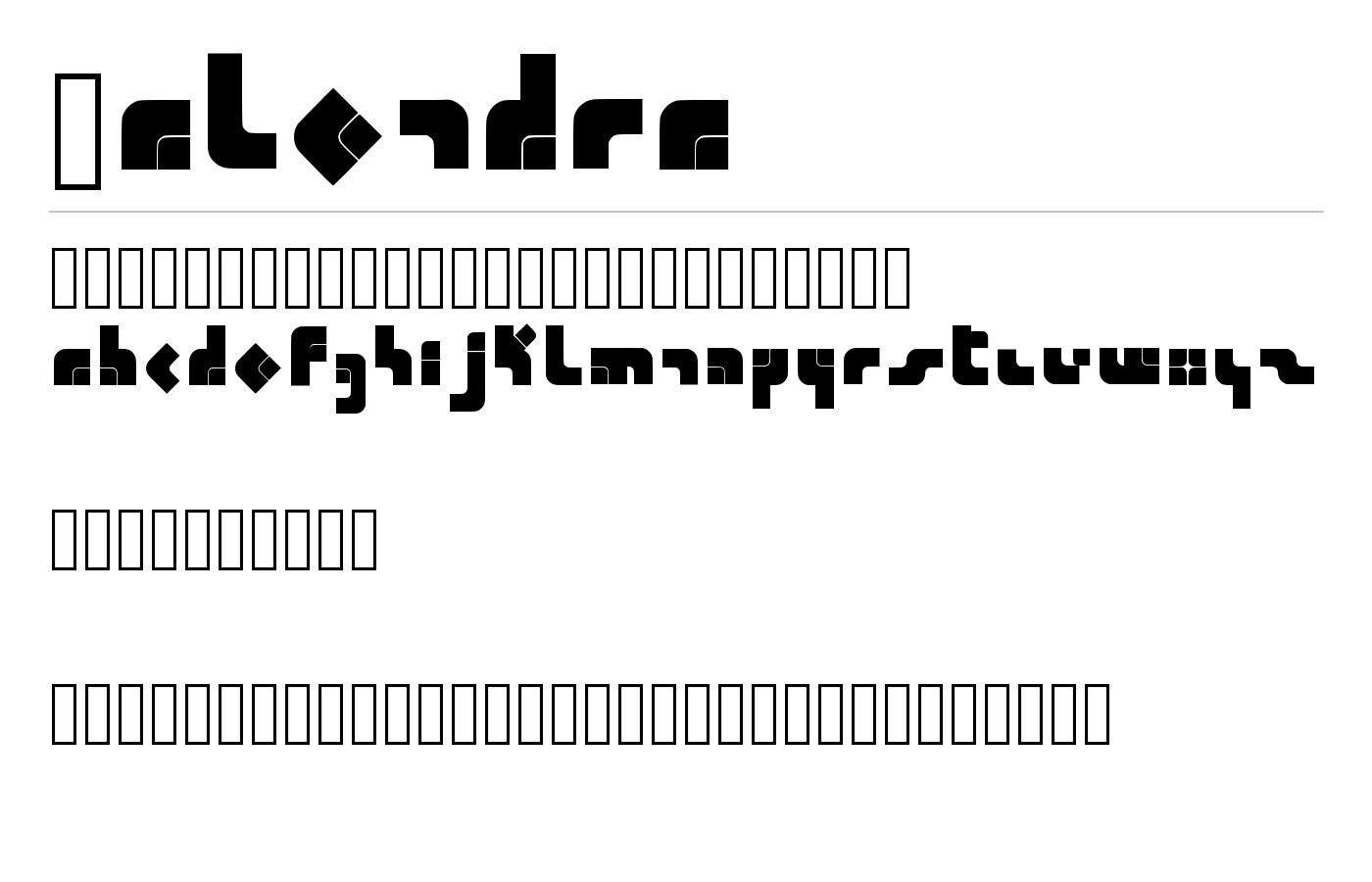
Calendra is a bold, modern display font characterized by its heavy weight and geometric, blocky letterforms. With a distinctly futuristic and almost modular aesthetic, it features low contrast strokes and sharp, almost robotic shapes that make it stand out especially in headlines and branding. This font works best for creative projects that want to convey innovation, technology, or a strong visual impact, such as logos, poster designs, or fashion-forward editorial layouts.
Calendra Font
About Calendra Font